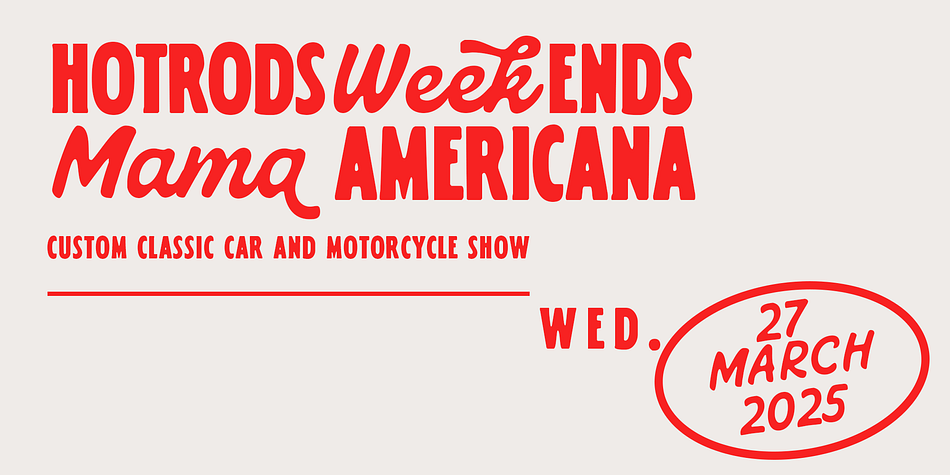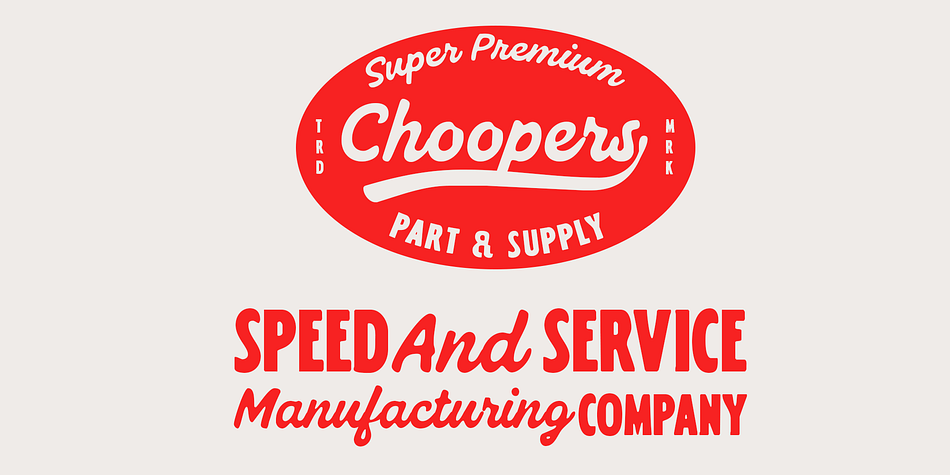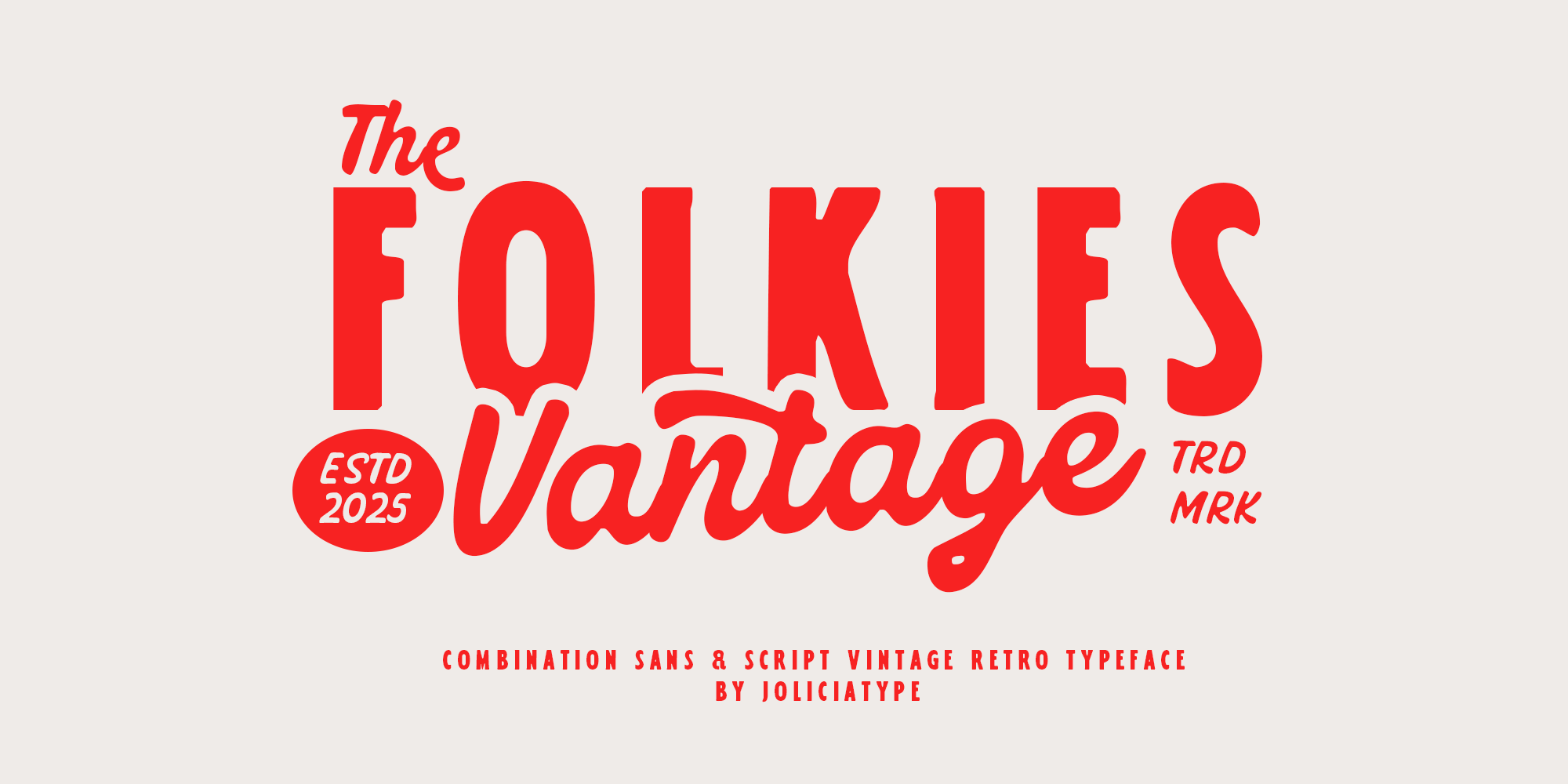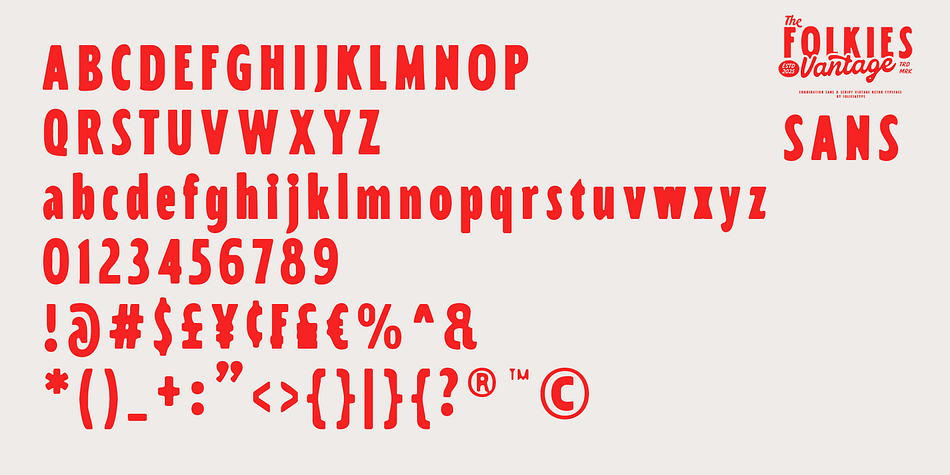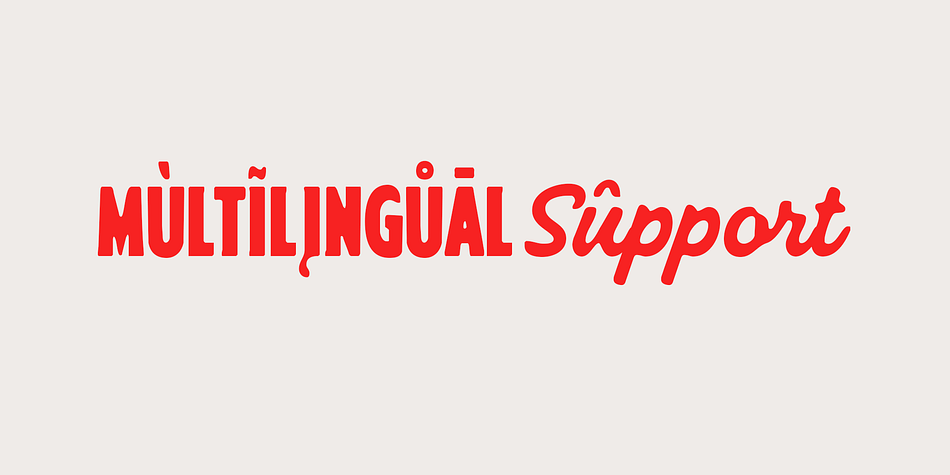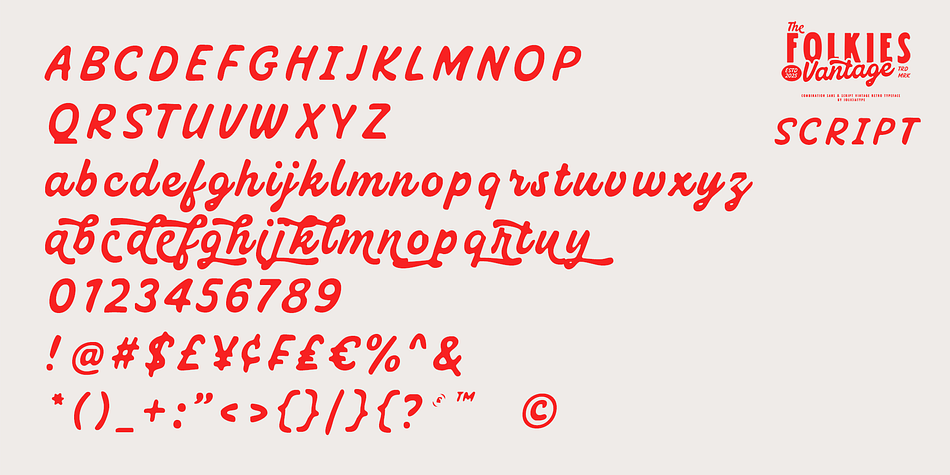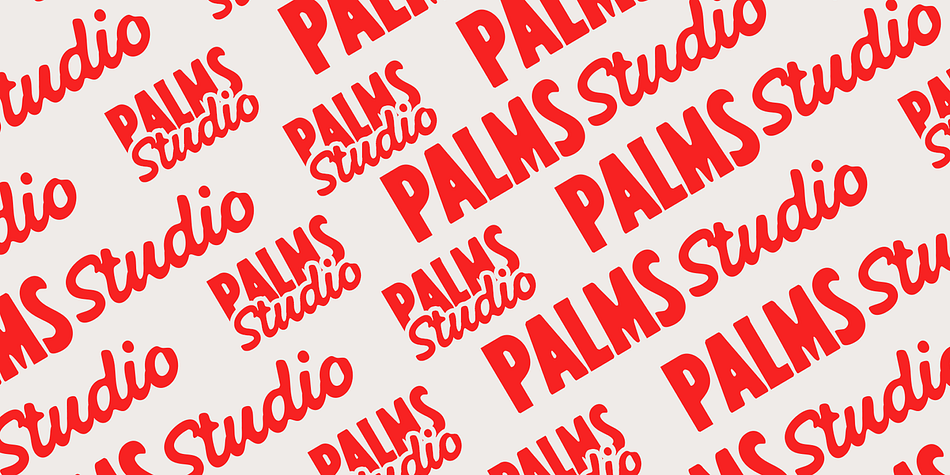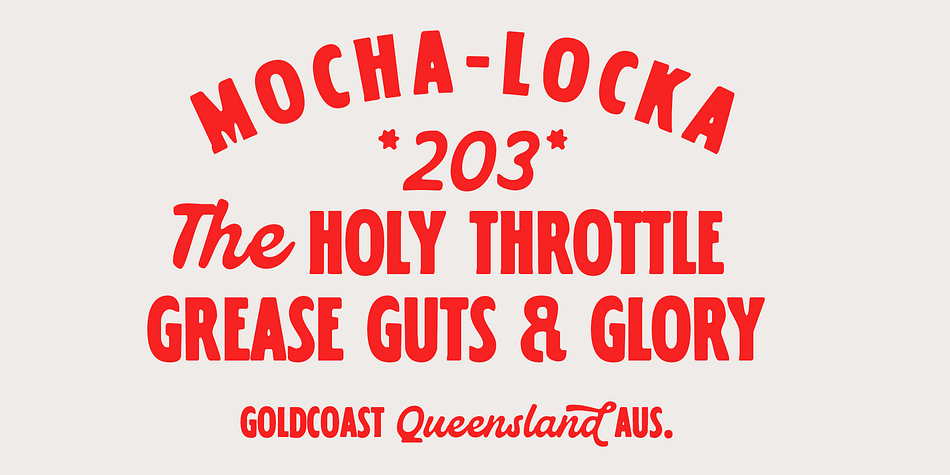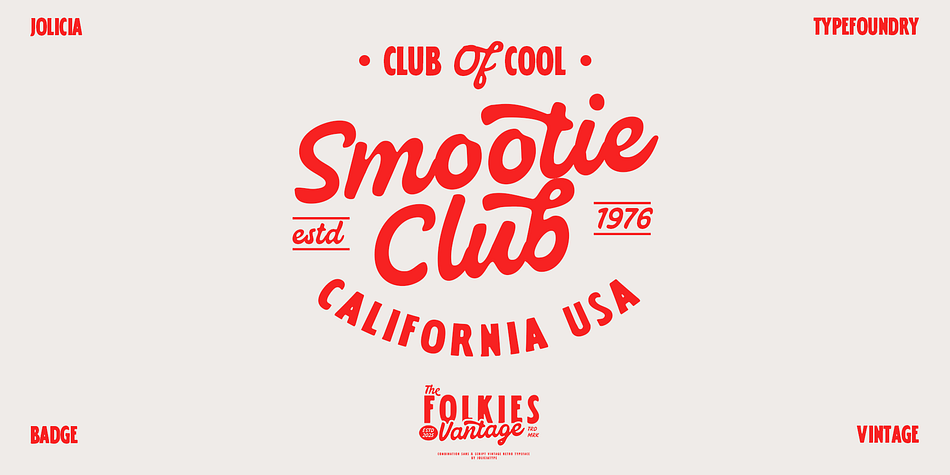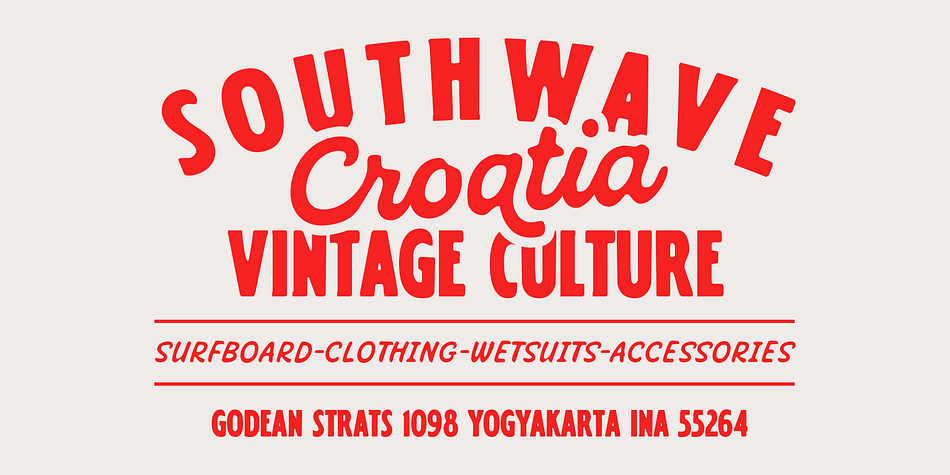
Folkies Vantage
Designed by Laire Pawenang, Folkies Vantage is a sans serif font family. This typeface has two styles and was published by Jolicia Type.
Folkies Vantage is a bold and expressive vintage font duo that combines strong Sans Serif characters with handcrafted Script strokes — capturing the timeless charm of retro signage and handcrafted letterforms. This typeface is designed to transport your audience to a nostalgic era, where rough textures, faded ink, and artisanal imperfections were part of the visual soul.
What makes Folkies Vantage truly stand out is its contrasting combination of clean-cut sans and rugged script styles.
The Sans Serif brings structure and clarity, while the Script adds personal flair and movement.
Together, they create a harmonious balance — ideal for branding projects that need to feel both classic and authentic.
With its gritty letterforms, vintage textures, and worn edges, Folkies Vantage gives a sense of age and soul.
It’s perfect for labels, t-shirt prints, cafe menus, logotypes, rustic packaging, and nostalgic design themes.
Whether you’re creating for a retro denim brand, a handbrew coffee shop, or a local motorcycle garage, this font will elevate your message with a raw, handcrafted feel.
Displaying the beauty and characteristics of the Folkies Vantage font family.
Highlighting the Folkies Vantage font family.
Folkies Vantage font family sample image.
Folkies Vantage is a a two font family.
Folkies Vantage font family example.
Folkies Vantage is a bold and expressive vintage font duo that combines strong Sans Serif characters with handcrafted Script strokes — capturing the timeless charm of retro signage and handcrafted letterforms. This typeface is designed to transport your audience to a nostalgic era, where rough textures, faded ink, and artisanal imperfections were part of the visual soul.
What makes Folkies Vantage truly stand out is its contrasting combination of clean-cut sans and rugged script styles. The Sans Serif brings structure and clarity, while the Script adds personal flair and movement. Together, they create a harmonious balance — ideal for branding projects that need to feel both classic and authentic.
With its gritty letterforms, vintage textures, and worn edges, Folkies Vantage gives a sense of age and soul. It’s perfect for labels, t-shirt prints, cafe menus, logotypes, rustic packaging, and nostalgic design themes. Whether you’re creating for a retro denim brand, a handbrew coffee shop, or a local motorcycle garage, this font will elevate your message with a raw, handcrafted feel.